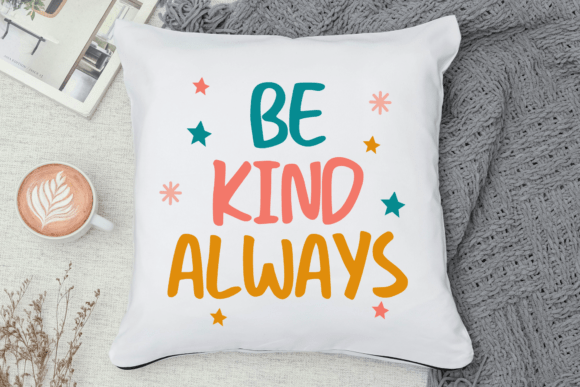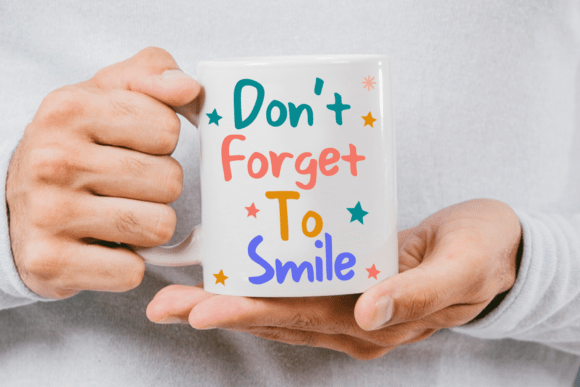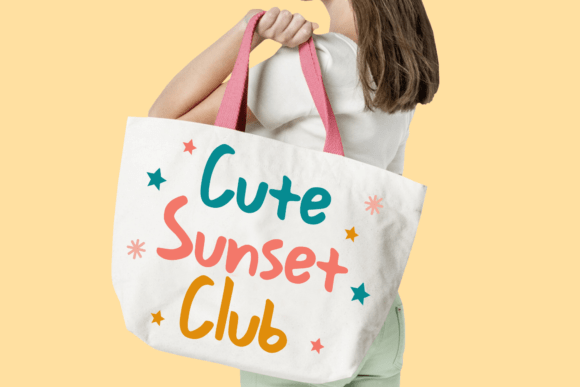
Introduction to Cute Sunset Handwriting Font
Have you ever been working on a creative project, and the perfect font eludes you? You envision a whimsical, hand-drawn feel that transports your audience to a world of wonder and magic. That’s where Cute Sunset Handwriting Font comes in – a delightful, high-quality design resource that’s sure to elevate your work.
With its playful, comic-inspired style, Cute Sunset Handwriting Font is the perfect addition to any project, whether you’re designing captivating stickers, unique t-shirts, or eye-catching logos. Its transparent background makes it easy to combine with other elements, allowing you to create truly unique and enchanting designs.
Key Features of Cute Sunset Handwriting Font
- Unique, hand-drawn design perfect for creative projects and personal use.
- Transparent background allows for seamless integration into various design resources.
- Includes a wide range of characters, including uppercase and lowercase letters, numbers, and punctuation.
- Perfect for adding a touch of whimsy and personality to any design project, from greeting cards to social media graphics.
Honest Review: Cute Sunset Handwriting Font
I recently had the chance to use the Cute Sunset Handwriting Font in a creative project, and I’m excited to share my thoughts on it.
What works well: ✨ The font is incredibly versatile, and its high-quality design makes it perfect for a variety of uses. From signage to invitations, this font is sure to add a touch of whimsy to any design. I also appreciated the transparent background option, which made it easy to layer the font with other design elements.
- The high-quality design ensures that the font will look great on a variety of backgrounds and at different sizes.
Overall, I was really impressed with the Cute Sunset Handwriting Font. Its unique design and high-quality construction make it a valuable addition to any designer’s toolkit. While it may have some limitations, it’s definitely worth considering for your next creative project.
Tips for Getting the Most Out of Cute Sunset Handwriting Font
To get the most out of the Cute Sunset Handwriting Font, use it in conjunction with a transparent background to create a subtle and elegant design. Experiment with different font sizes and styles to add visual interest to your project.
The Cute Sunset Handwriting Font is ideal for use in various creative projects, such as wedding invitations, birthday cards, and social media graphics. Its high-quality design and unique style make it a popular design resource among designers and artists.
Yes, the Cute Sunset Handwriting Font has a transparent background, making it easy to use in a variety of design scenarios. Simply place the font on top of your desired background, and it will take on the color of the layer below.
Q: Is the Cute Sunset Handwriting Font suitable for digital and print projects?
Yes, the Cute Sunset Handwriting Font is suitable for both digital and print projects. Its high-quality design ensures that it will look great on screen and in print, making it a versatile design resource for any project.